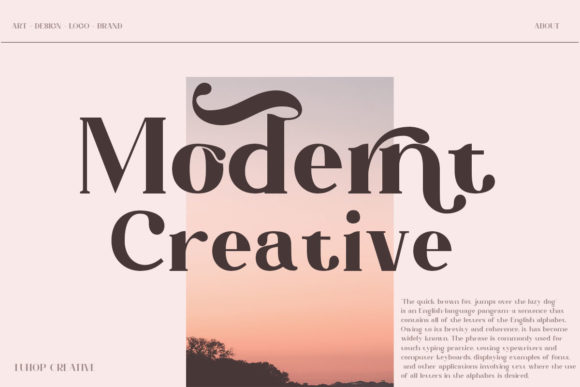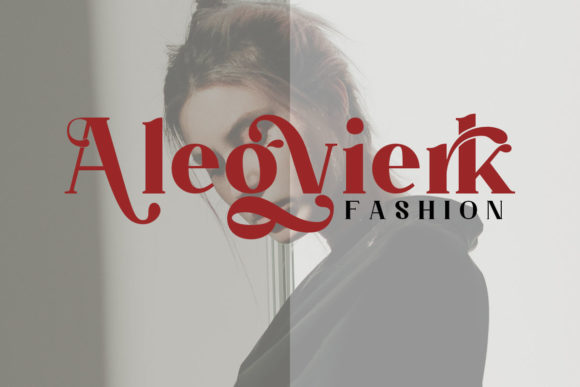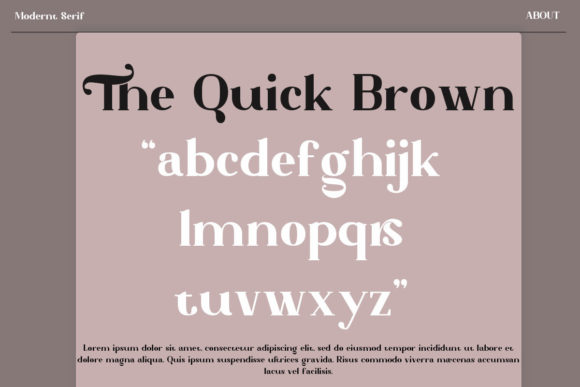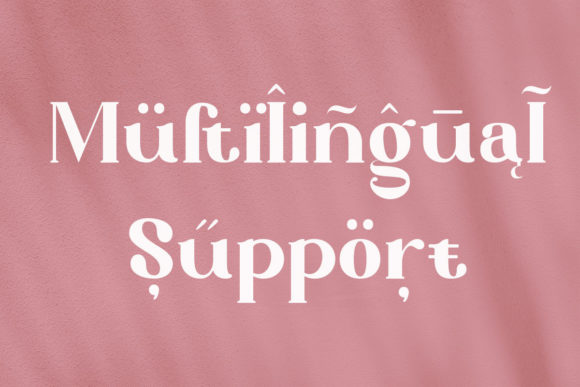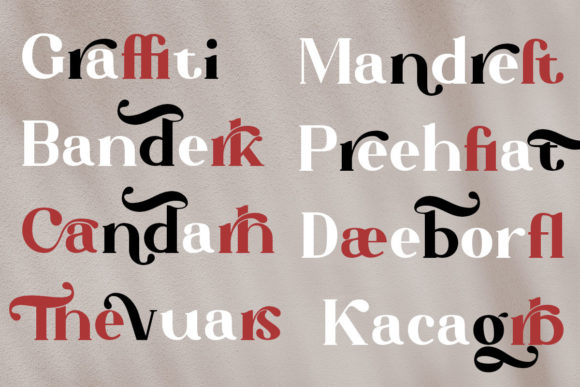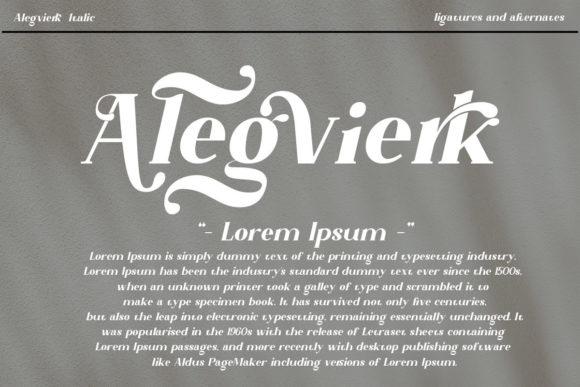
The Perfect Combination of Style and Sophistication
Have you ever stumbled upon a font that sparks a wave of creative inspiration? For designers, it’s that moment of serendipity when everything comes together – the perfect font, the perfect idea, and the perfect execution. That’s exactly what happens when you discover the Alegvierk Font, a highly detailed, chic, and uniquely designed serif font that elevates any crafting project.
Alegvierk Font is more than just a font; it’s a tool that helps designers add a touch of sophistication to their work. Whether you’re creating cards, branding materials, labels, or anything in between, this font is sure to impress. Its versatility and style make it a valuable asset for designers who crave perfection and attention to detail.
With Alegvierk Font, you’ll be able to take your designs to the next level and stand out in a crowded market. Its unique charm and elegance make it a must-have for any serious designer looking to add a touch of class to their work.
Alegvierk Font Key Features
- Unique Characteristics: Alegvierk features a unique blend of modern and vintage elements, with intricate details and subtle nuances that set it apart from other fonts.
- Font Weight: Alegvierk offers multiple font weights, including Light, Regular, Medium, Bold, and Black, allowing designers to achieve the perfect balance of style and legibility.
Alegvierk Font Review
Overall, I’m quite impressed with Alegvierk Font. Here are some of its standout features:
- ✨ Unique aesthetic: The font’s mix of serif and sans-serif elements gives it a distinctive look that can add a touch of elegance to any design project.
- ✨ Versatility: Alegvierk Font works well in a variety of contexts, from body text to headings and even logos.
- ✨ High-quality glyphs: The font includes a wide range of characters, including accented letters and punctuation marks.
- ⚠️ Limited language support: Alegvierk Font may not be suitable for projects that require a wide range of languages, as it’s primarily designed for English and a few other languages.
- ⚠️ Some characters may not render correctly: I’ve noticed that some characters, particularly those with complex diacritics, may not display correctly in certain situations.
Overall, I think Alegvierk Font is a solid choice for designers who want a unique, high-quality font for their projects. While it may have some limitations, its versatility and aesthetic appeal make it well worth considering.
Getting the Most Out of Alegvierk Font
To get the most out of Alegvierk Font, try the following tips:
– Use Alegvierk Font for headings and titles to create a consistent look.
– Experiment with different font sizes and styles to create visual interest.
– Pair Alegvierk Font with other fonts to create a unique and visually appealing combination.
Alegvierk Font is commonly used for:
– Creative projects such as invitations, posters, and social media graphics.
– Business presentations and reports.
– Digital marketing materials such as email newsletters and blog posts.